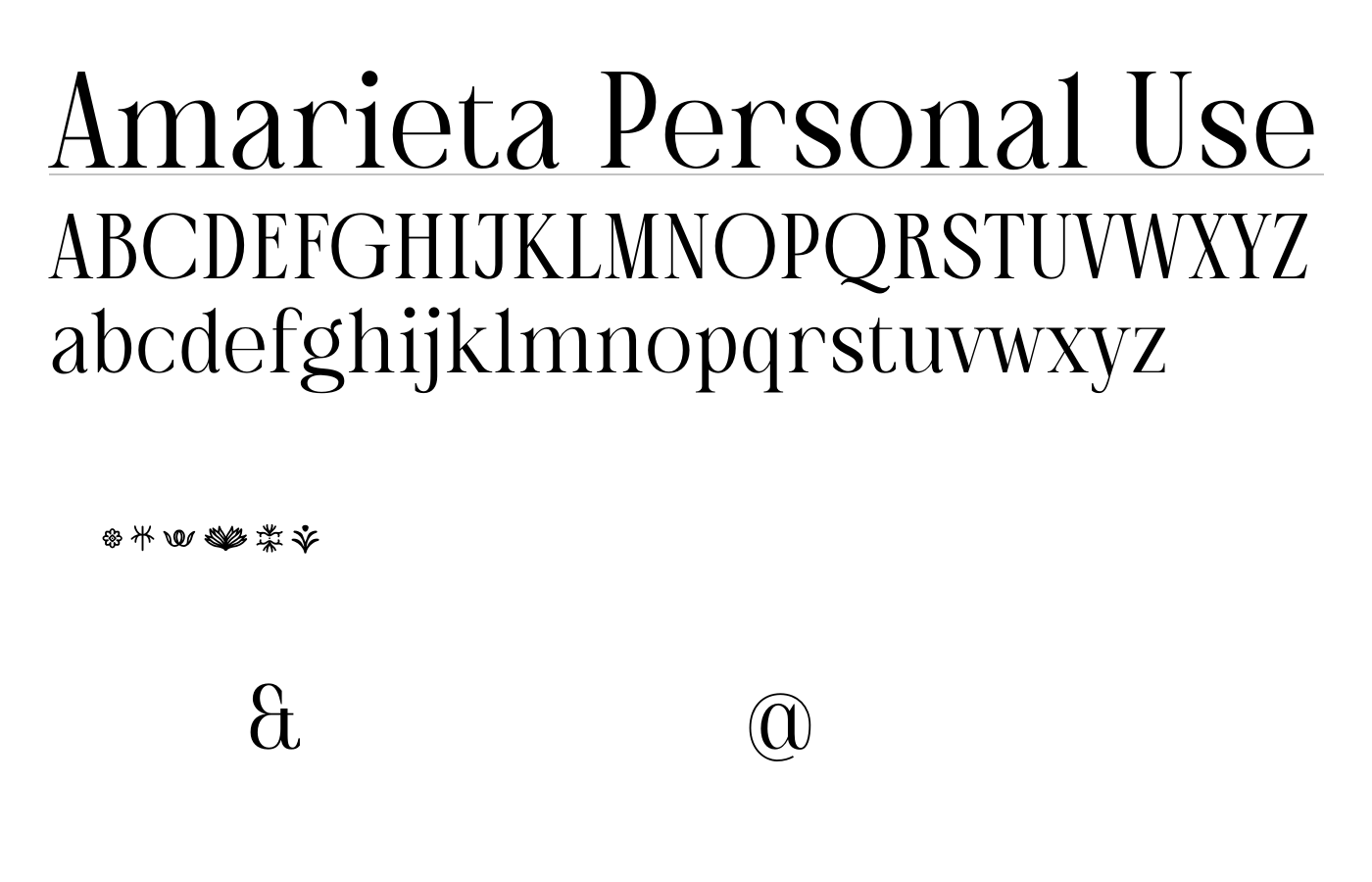
Amarieta Personal Use is a refined serif font with a classic, elegant feel characterized by its high contrast between thick and thin strokes and delicate, bracketed serifs. Its slender, tall letterforms and distinctive details like the single-story 'g' and unique ampersand lend a sophisticated, timeless quality perfect for luxury branding, editorial headlines, and fashion-focused designs. This font excels in settings where elegance and readability are key, making it ideal for logos, magazines, and upscale packaging.
Amarieta Personal Use Font
About Amarieta Personal Use Font
| Font family | Amarieta Personal Use Font |
| Designer | Putu Dody Permana |